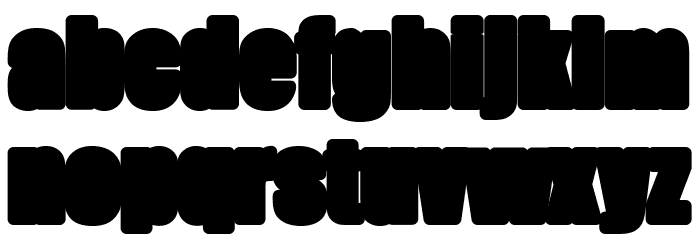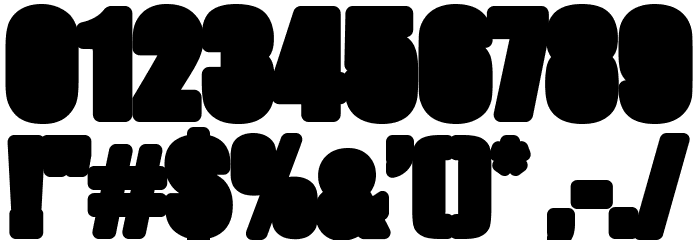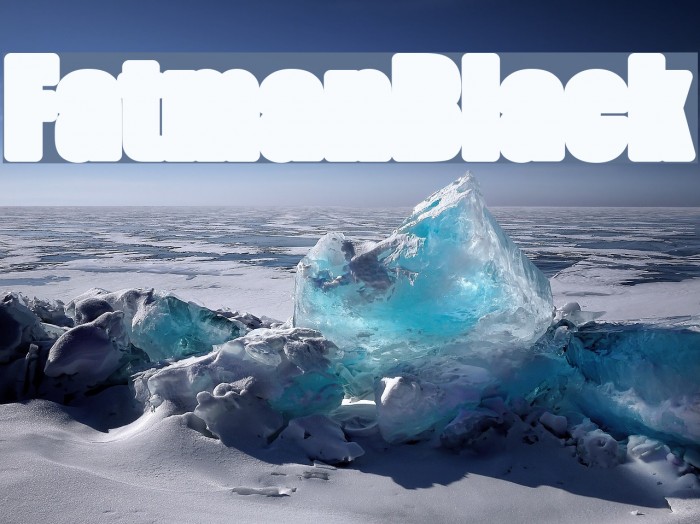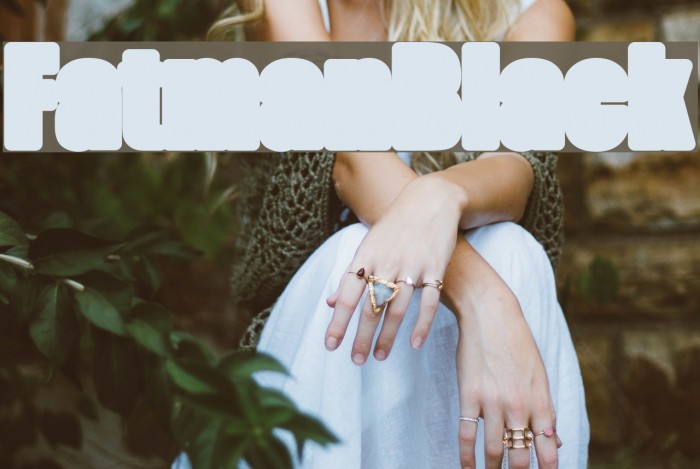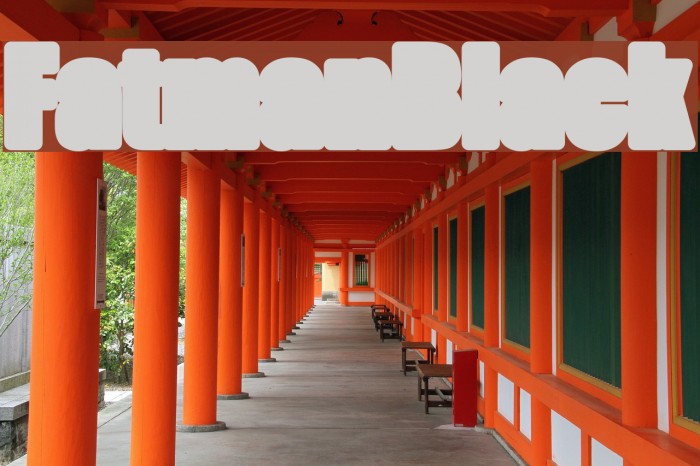
FatmanBlack Font
This font is characterized by its bold, heavy appearance with rounded edges, giving it a playful and robust feel. The letters are tightly packed, creating a sense of unity and strength. The uniform thickness of the strokes throughout the characters contributes to its low contrast, making it ideal for impactful headlines and attention-grabbing designs. Its exaggerated weight and rounded forms lend a modern, yet slightly retro vibe, suitable for projects that require a bold statement.
A bold, rounded font with low contrast and tight spacing, ideal for impactful designs.
- Proposed Projects: Perfect for branding, poster design, and any project needing a strong visual impact.
- Character Spacing: Tight